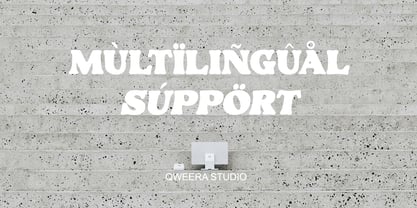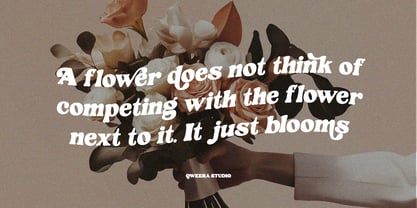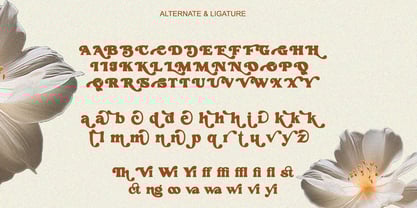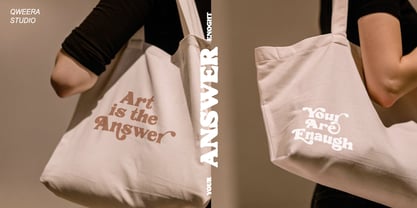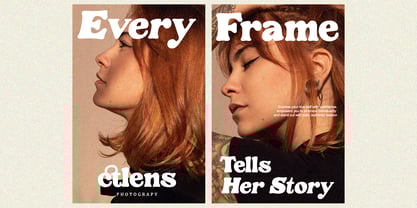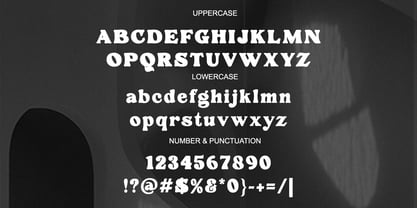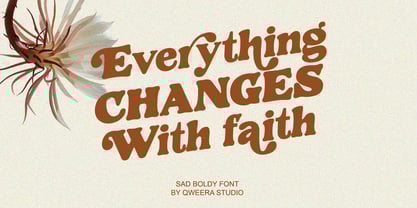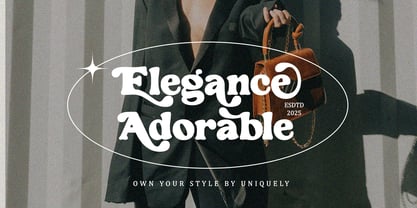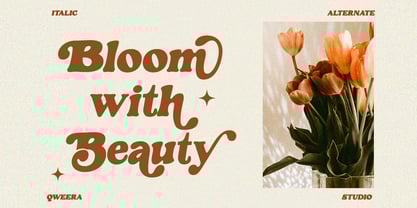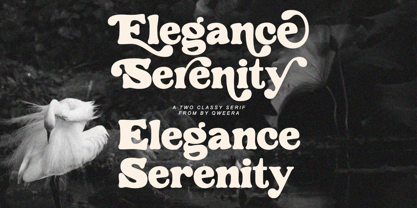
Sad Boldy
by Qweera Studio
The Sad Boldy Font Family was designed by Idhham Cholid Rikzano Yahya and published by Qweera Studio. Sad Boldy contains 2 styles.
SadBoldy - Retro Display Serif Font with Bold Character
SadBoldy is a striking retro display serif that blends vintage charm with contemporary boldness. Featuring both Regular and Italic styles with expressive alternates and ligatures, this typeface delivers unmatched versatility for eye-catching branding, memorable logos, distinctive packaging, and retro-inspired poster designs.
Where Vintage Meets Modern Impact
With its chunky serifs and dynamic italic variant, SadBoldy captures the essence of classic typography while offering fresh, modern applications. The carefully crafted alternates and ligatures allow for authentic retro styling with contemporary flair.
• Bold Retro Serif Design - Chunky letterforms with vintage appeal
• Dual Style Versions - Regular & italic for design flexibility
• Stylistic Alternates - 25+ authentic character variations
• Classic Ligatures - Period-accurate letter connections
• Extended Latin Support - Complete character set
Designers: Idhham Cholid Rikzano Yahya
Publisher: Qweera Studio
Foundry: Qweera Studio